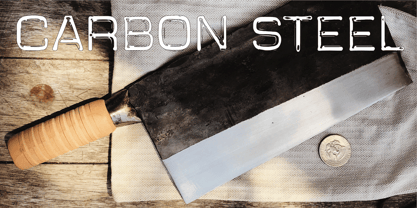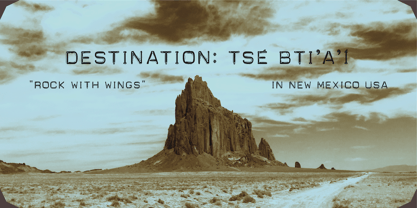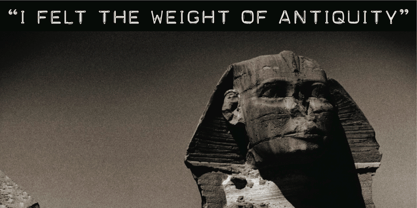
Carbon Steel
by Coniglio Type
The Carbon Steel Font Family was designed by Joseph Coniglio and published by Coniglio Type. Carbon Steel contains 3 styles and family package options. More about this family
Hello from Coniglio Type. Carbon Steel is a new set of characters derived from reversing an analog Dymo label maker, years ago — originally from the late 1990's.) It is the only set of positive images of Dymo characters on the market and its available in 3 weights (styles). My father used the Dymo wheel label tape as name tags like his lunch box. Between my mother's typewriter and dad's Dymo machine, I began to study alphabet characters more carefully. Please enjoy Carbon Steel.
Carbon Steel